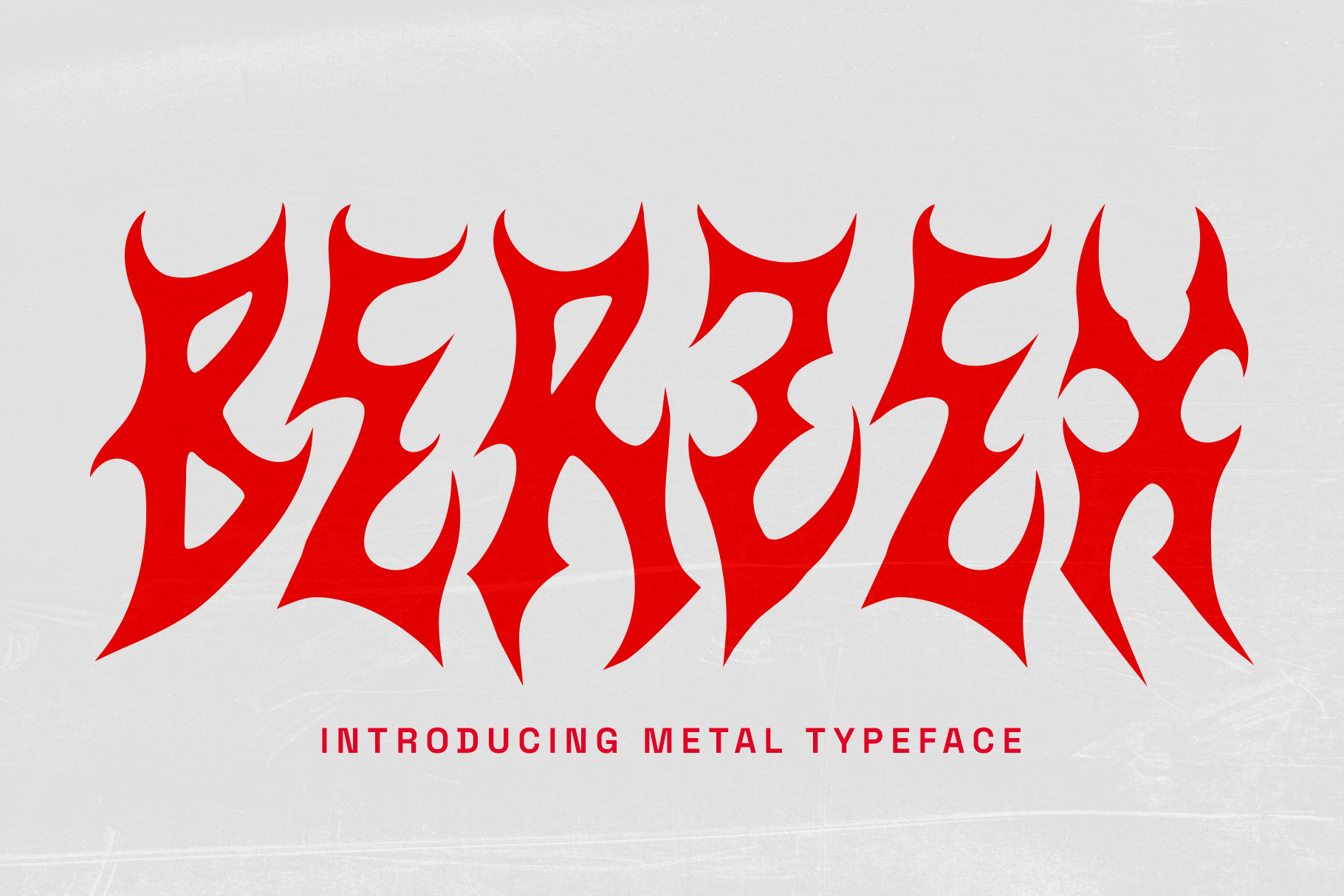
Berzex Metal Font
Unleash the fury of Berzex, a metal font designed to embody the raw power and aggression of extreme music. This exclusive, high-quality typeface features bold, jagged lines and intense detailing, perfect for capturing the brutal aesthetic of metal culture. With a wide range of alternate characters, Berzex is versatile enough for band logos, album covers, posters, and t-shirt designs. Easy to use and modify, this font will bring a savage, unforgettable edge to any project. Elevate your designs and channel the chaos with Berzex Metal Font